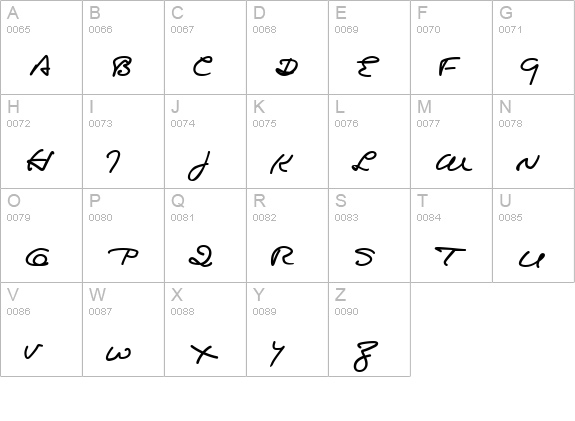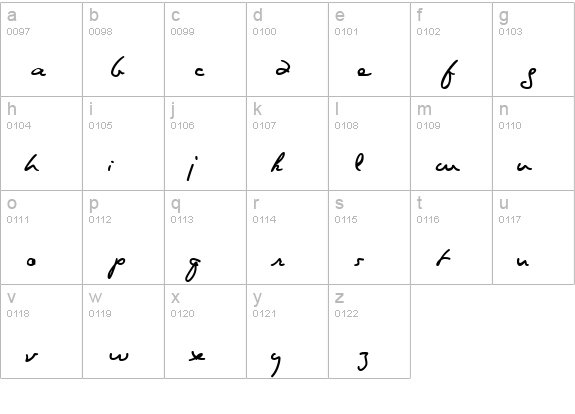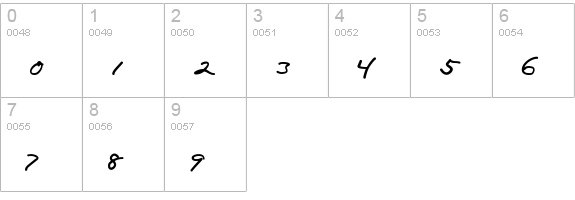
Lovecraft Cursive HPLHS Font Details
The Lovecraft Cursive HPLHS font is a beautifully crafted typeface inspired by the works of renowned horror writer H.P. Lovecraft. This elegant and mysterious font captures the essence of Lovecraftian horror with its intricate and ornate design. Perfect for adding a touch of eldritch flair to your projects, the Lovecraft Cursive HPLHS font is sure to send shivers down your spine. Best of all, this font is completely free to download! You can get your hands on the Lovecraft Cursive HPLHS font at FontsMarket.com and start incorporating its eerie charm into your designs today. Don't miss out on this fantastic opportunity to bring a taste of Lovecraft's otherworldly creations to your work. Download the Lovecraft Cursive HPLHS font now and let your imagination run wild in the depths of cosmic terror.